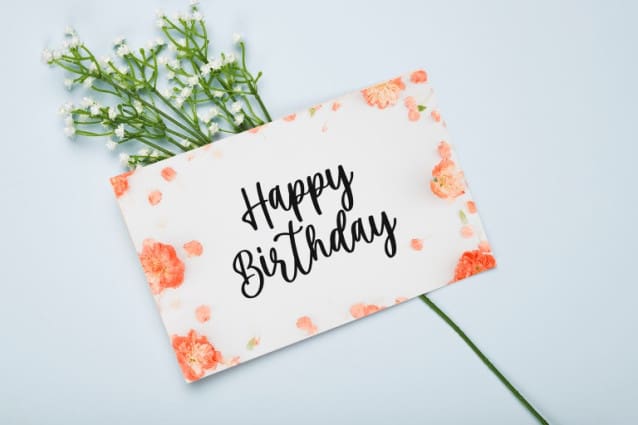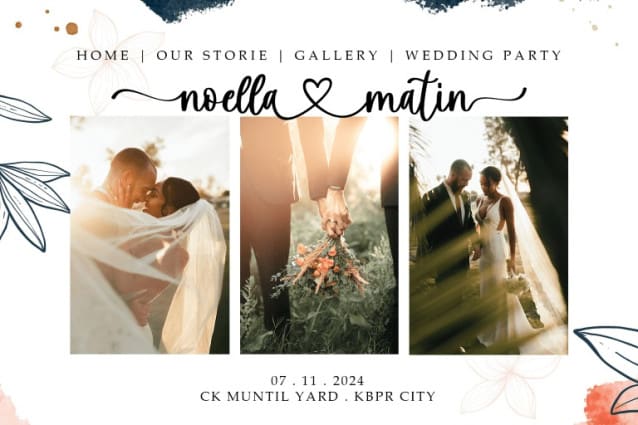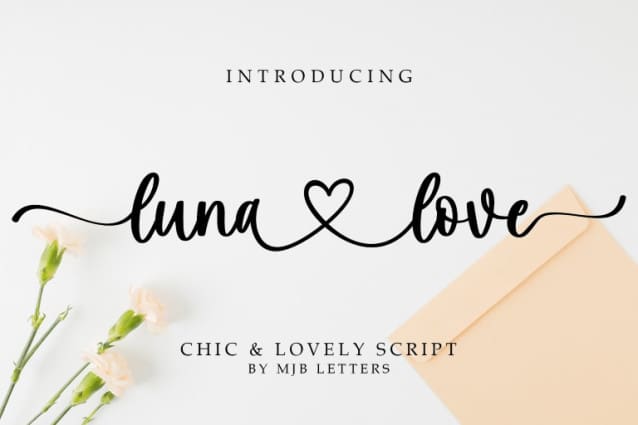
Mila Love Font
Mila Love Font, a beautifully crafted script font that exudes elegance and romance. Featuring unique connecting hearts, ligatures, and exquisite beginning and ending swashes, Mila Love is perfect for a wide range of design projects such as wedding invitations, branding, packaging, social media graphics, and handwritten quotes. The delicate and romantic design, along with its versatile application, makes MilaLove an essential addition to your font collection.